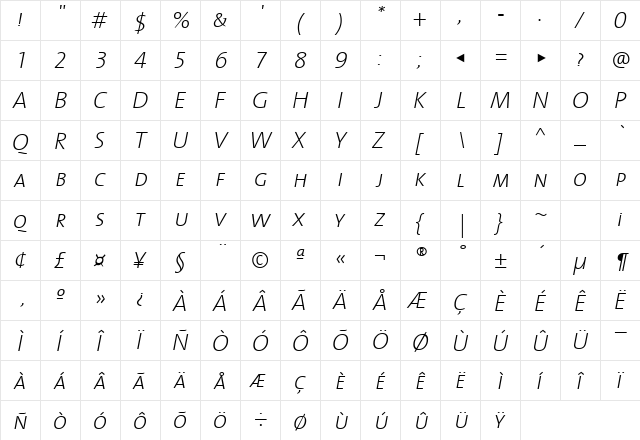
TheMixExtLigCapIta Regular Font Preview
TheMixExtLigCapIta Regular
Design Context for TheMixExtLigCapIta Typeface
TheMixExtLigCapIta offers clean, dependable letterforms without strong stylistic allegiance, making it a practical choice for designers who need flexibility.